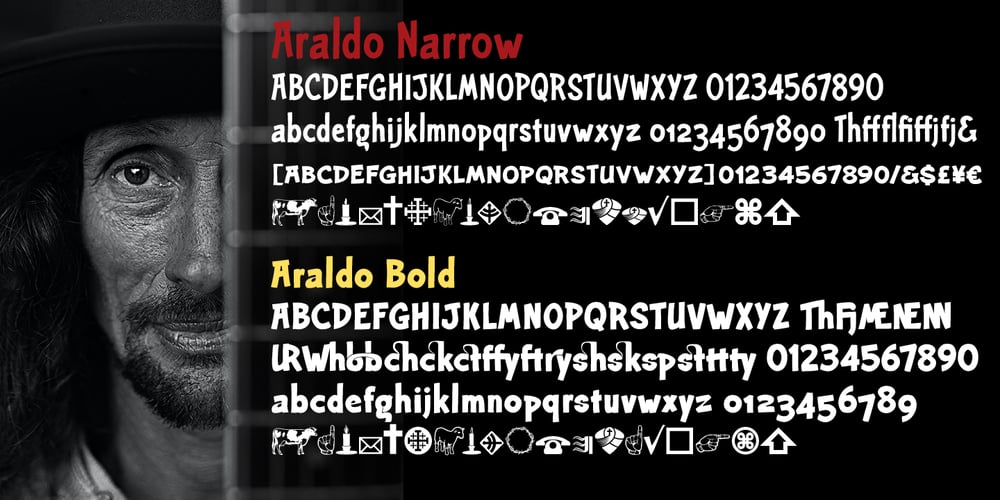
Araldo
Araldo font
Araldo Font Family was designed by David Bergsland and published by Hackberry Font Foundry. Araldo contains 2 styles and family package options. My latest book production group is quite conservative. I discovered my need for a pair of headline fonts with the same vertical metrics which are looser and more lively. Since the serif family is Biblia Serif, and the Sans family is Draetha [which is Welch for preach], Araldo [which is Italian for herald] makes sense to me. Narrow has my normal set of Opentype features with small caps, small cap figures, and the rest of the figure sets. Bold is too heavy for small caps, without messing with the metrics. So, it has the normal figure sets, plus a decent set of discretionary ligatures. They both work well, and are meeting my need for a headline family to add to the book production group.